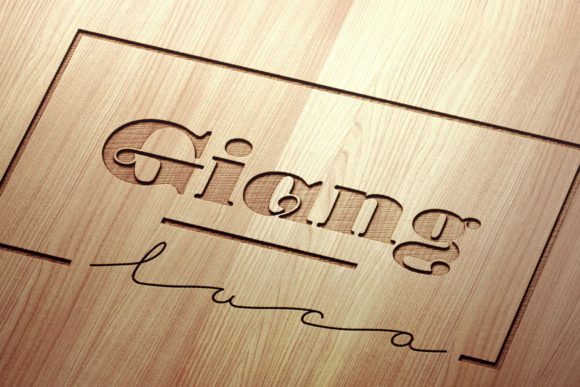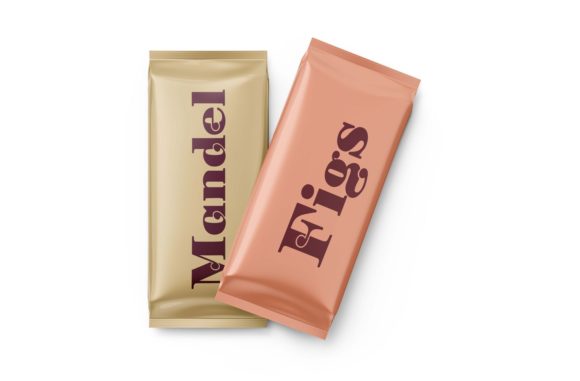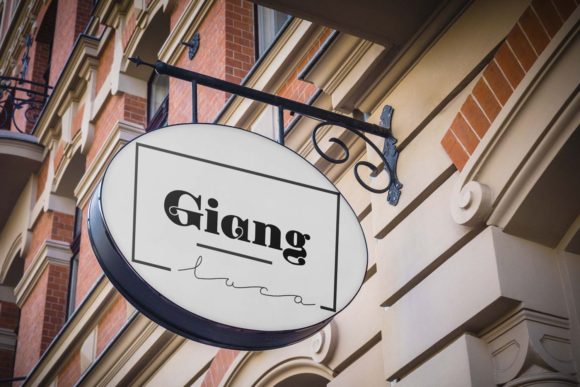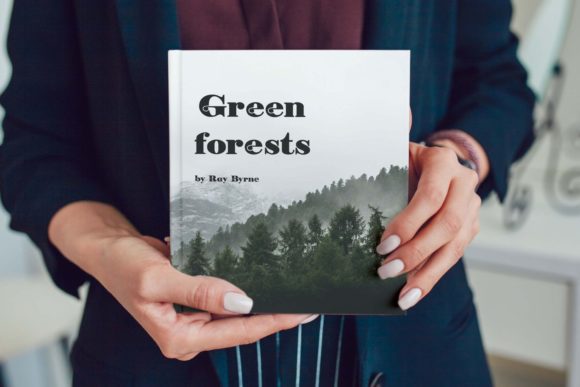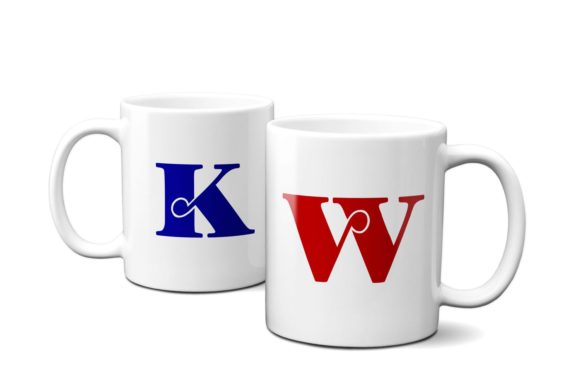
Feba Font: Elevate Your Designs with a Unique Decorative Style
Feba is a thoughtfully designed decorative font that can add a touch of personality to a wide range of design projects. Its experimental yet familiar feel makes it an excellent choice for designers and crafters looking to create something truly unique. In this article, we’ll explore the features and benefits of Feba Font, and how it can inspire your next design endeavor.
The Story Behind Feba Font
Feba Font is the result of a meticulous design process aimed at creating a font that stands out from the crowd while still being approachable and recognizable. Its creators sought to blend experimental elements with a familiar feel, making Feba a versatile font suitable for various applications, from branding and advertising to packaging and digital media.
Key Features of Feba Font
- Unique Decorative Style: Feba boasts a distinctive decorative style that can instantly elevate your designs. Its intricate details and elegant lines make it perfect for projects requiring a touch of sophistication.
- Experimental yet Familiar: The font’s experimental approach ensures it doesn’t conform to traditional typography rules, offering a fresh perspective. Meanwhile, its familiar undertones keep it grounded and accessible.
- Versatility: Feba Font is designed to be versatile, making it suitable for a wide range of design projects, including logos, titles, headings, and more.
- Legibility: Despite its decorative nature, Feba maintains a high level of legibility, ensuring your message is conveyed clearly and effectively.
Feba Font is more than just a typeface; it’s a creative tool that can inspire your next design project. Here are a few ways you can use Feba to spark your creativity:
- Branding and Logos: Use Feba to create memorable logos and brand identities that stand out from the competition.
- Digital Media: Add a decorative touch to your social media graphics, blog posts, and website headers with Feba.
- Packaging: Elevate your product packaging with Feba’s elegant and sophisticated style.
- Art and Illustration: Combine Feba with your illustrations or artwork to add an extra layer of depth and personality.
Tips for Using Feba Font Effectively
To get the most out of Feba Font, consider the following tips:
- Pair with Simple Fonts: Combine Feba with simpler fonts to create visual contrast and hierarchy in your designs.
- Experiment with Colors: Play around with different color schemes to find the perfect match for your Feba Font.
- Adjust Font Sizes: Use varying font sizes to create emphasis and add depth to your designs.
- Be Mindful of Legibility: While Feba is designed to be legible, ensure it’s used in a way that’s easy to read, especially for body text.
Feba Font offers a unique blend of experimental and familiar elements, making it an excellent addition to any designer’s toolkit. Its versatility, decorative style, and legibility ensure it can be used in a wide range of projects, from branding and advertising to packaging and digital media. Whether you’re a seasoned designer or a crafter looking to add a personal touch to your work, Feba Font is sure to inspire your next creative endeavor.